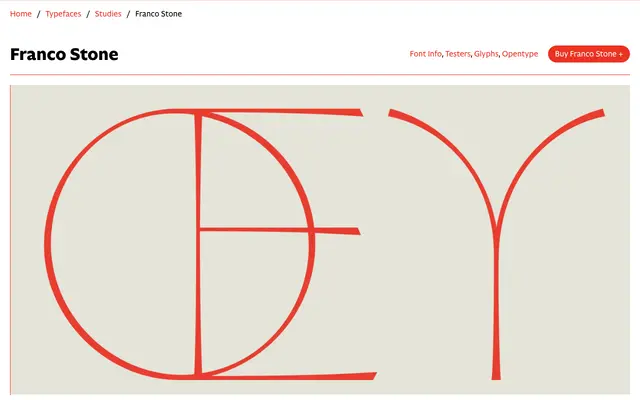
Franco Stone
CAST · Lucas Franco · 2020
A flared sans-serif by Lucas Franco rooted in early Renaissance Florentine inscriptions, sharing lineage with Optima but leaning toward a sharper, more lapidary elegance.
Drawing on the same 15th-century Florentine letterforms that prompted Hermann Zapf to sketch Optima in 1950, Franco Stone pursues a thinner, more incisive interpretation of the carved letter. Capitals with deliberately varied proportions, perfect circular O and Q forms, and a wide set of discretionary and nested ligatures drawn from Romanesque inscriptions give the face a strong, irregular classical rhythm. Lowercase letters reference Renaissance calligraphic practice, with an f bearing a descending stroke and a q with an uppercase-style tail.
Franco Stone is a flared sans-serif with inscriptional roots in early Renaissance letterforms; its stems thicken toward terminals and curves approximate serifs without fully crossing into serif territory, placing it in the tradition of Optima rather than pure grotesque or humanist sans.